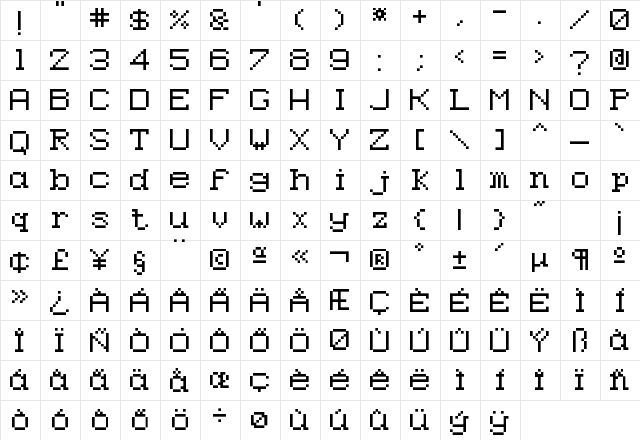
Epson Pixeled Regular
Design Context for Epson Pixeled Typeface
Epson Pixeled is rooted in pixel-grid construction, making it a natural fit for game UI, retro computing aesthetics, and digital nostalgia projects.
A natural choice for retro game titles, chiptune music branding, 8-bit UI, and digital nostalgia projects.
Pro Tip: Pair Epson Pixeled with flat colour palettes and simple geometric UI elements to reinforce its digital aesthetic.